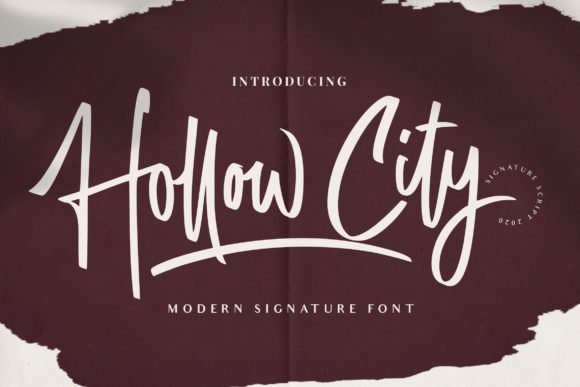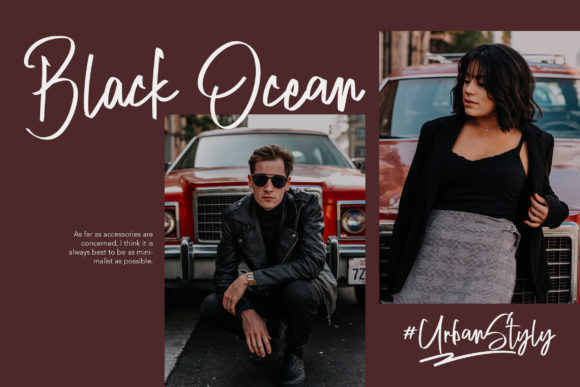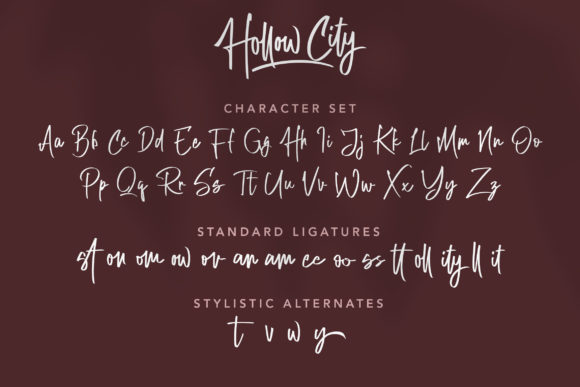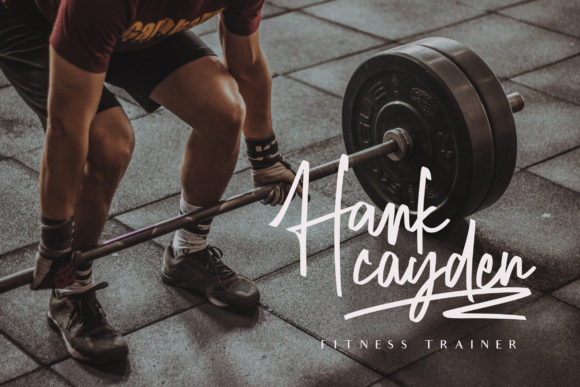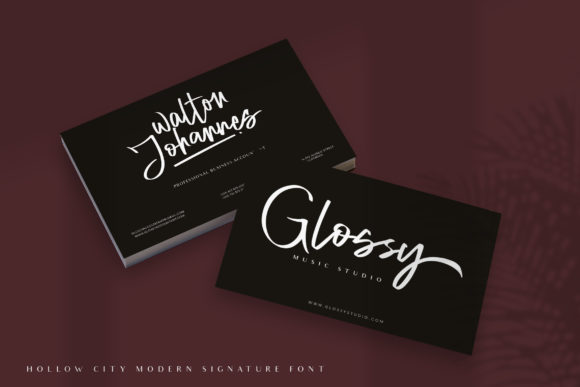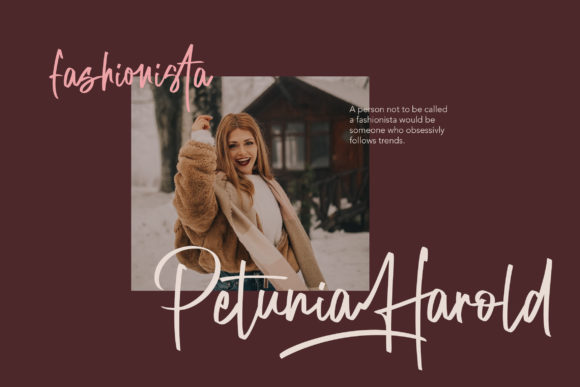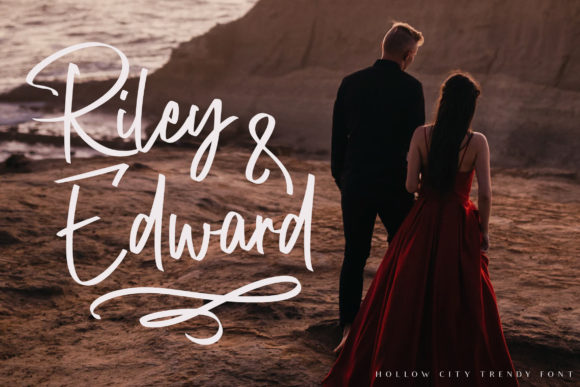
Unlock the Magic of Handwritten Charm
Remember the moment you fell in love with a beautiful handwritten font? Perhaps it was on a vintage book cover, a wedding invitation, or a quirky t-shirt. Whatever the source, that unique, romantic touch has probably stayed with you ever since. For designers and creatives, finding the perfect font can be a game-changer, elevating a project from good to great.
Enter Hollow City Font, a stunning calligraphy typeface that captures the essence of handwritten charm. With its flowing characters and delicate dance along the baseline, this font is perfect for a wide range of applications, from logos and wedding invitations to headings and signage. PUA encoded for easy access to all glyphs and swashes, Hollow City Font is a valuable addition to any designer’s toolkit.
Hollow City Font Key Features
- Unique Characteristics: This font features a unique, hand-drawn aesthetic with intricate details and subtle texture, giving it a distinctive and eye-catching look.
Honest Review of Hollow City Font
I recently had the chance to work with the Hollow City font, and I must say, it’s a unique and intriguing choice. ✨ The font’s distressed, worn look adds a touch of nostalgia and character to any design project.
Here are some of the things that work well with Hollow City:
- ✨ Its versatility – the font can be used for a wide range of projects, from posters to book covers.
- ✨ The subtle texture and distressed look add a level of depth and interest to the design.
- ✨ The font is highly legible, even at small sizes, making it a great choice for body text.
- ⚠️ The font can be quite busy, which may make it difficult to read for some users.
- ⚠️ The distressed look can be overwhelming if overused, so it’s essential to use it judiciously.
- ⚠️ The font may not be suitable for formal or corporate designs, as it has a more casual, laid-back feel.
Overall, I think Hollow City is a great choice for designers who want to add some personality and character to their projects. Just be sure to use it thoughtfully and in the right context.
Hollow City Font Practical Application Guide
Tip: Use the Hollow City Font for headings and titles to create a striking visual effect.
Tip: Use the Hollow City Font for creative typography and experiment with layer styles and effects.
Tip: Use the Hollow City Font for presentations and reports to add a touch of elegance and sophistication.
The Hollow City Font is ideal for:
– Creative typography and graphic design projects
– Presentations and reports
– Branding and marketing materials
– Editorial and publishing projects